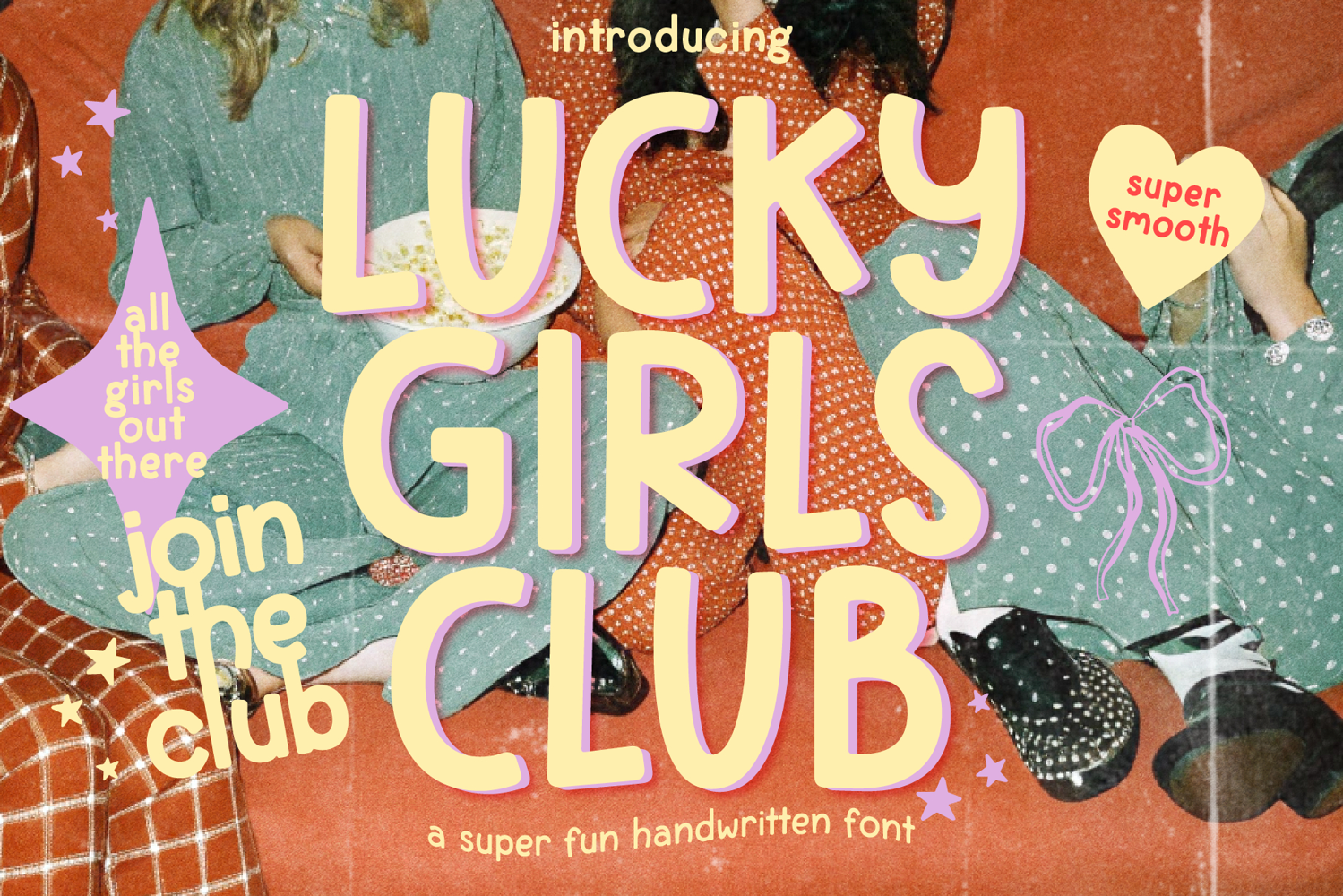
Lucky Girls Club Bold Handwritten Sans Retro Vibes
Lucky Girls Club is a bold handwritten sans, full of positive energy and fun. Inspired by lazy Sundays and productive Mondays.
Perfect for: Cricut crafts, posters, social media, invitations, DIY projects, greeting cards, logos, branding, social media, printed goods or anything that requires cute handwritten lettering.
FONT FEATURES
• Cute handwriting style
• Standard characters (lowercase, uppercase, numbers, punctuation)